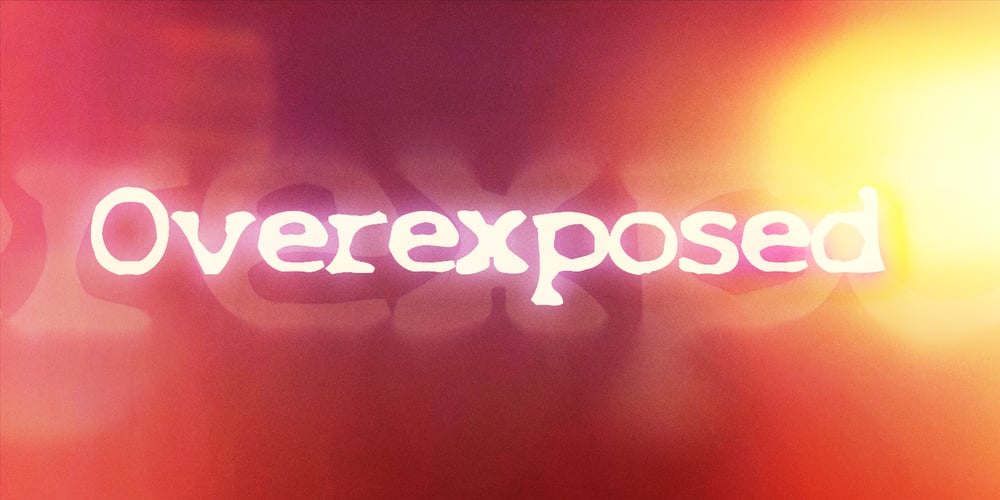
Overexposed Font Family was designed by Todd Dever and published by Cool Fonts. Overexposed contains 1 styles and family package options. This is a “Grunge” style font that looks as if it was overexposed on film. It is funky yet still very readable. It is best used in sizes over 12 points but really looks cool when used over 16 points. This is a favorite for use in video graphics.